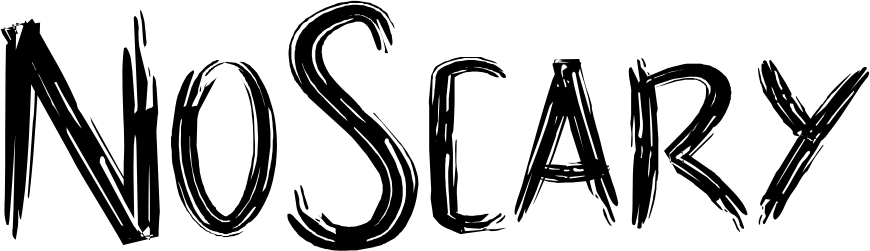
NoScary Font
NoScary is a font full of casual feels featuring characters similar to hand-drawn ones. They look organic and insecure, best to use when you want your lettering to seem so. NoScary comes from the brush font family with no lowercase letters and can be of help in cartoons, comic books, games, posters, flyers, and more.